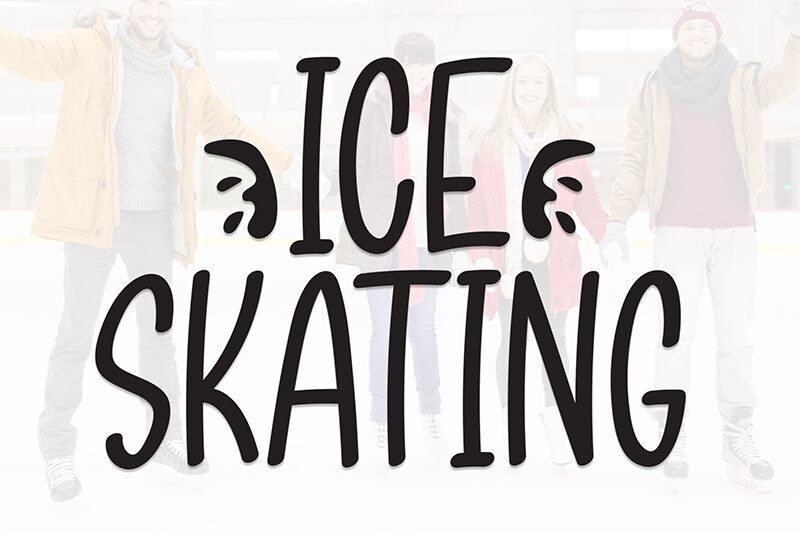
Ice Skating font is a free handwritten font designed by Andi Moz. It reflects a friendly, whimsical, and modern vibe, drawing the attention of the reader with its informal yet engaging letters. This inviting font was inspired by the art of ice skating with its fluid, gracious approach which makes its characters stand out every time.
The casual and playful nature of this font allows it to be used in editorial texts and children’s books as well as in product packaging and branding designs for handmade items. It can also be used for postcards, greeting cards, posters, and digital designs.
This is a sweet and friendly handwritten display font. Cute and fun, this font is perfect for creating wedding invitations, cards, or any design that requires a playful touch!